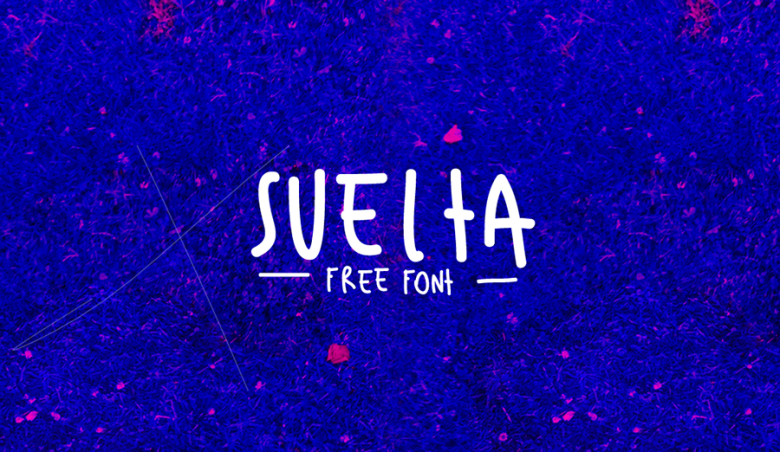
Suelta Font
Suelta is a casual and groovy handwritten typeface that can fit perfectly with another typeface for your design composition. It would be a perfect choice to design posters, t-shirt designs, eye-pleasing typographic designs and more.